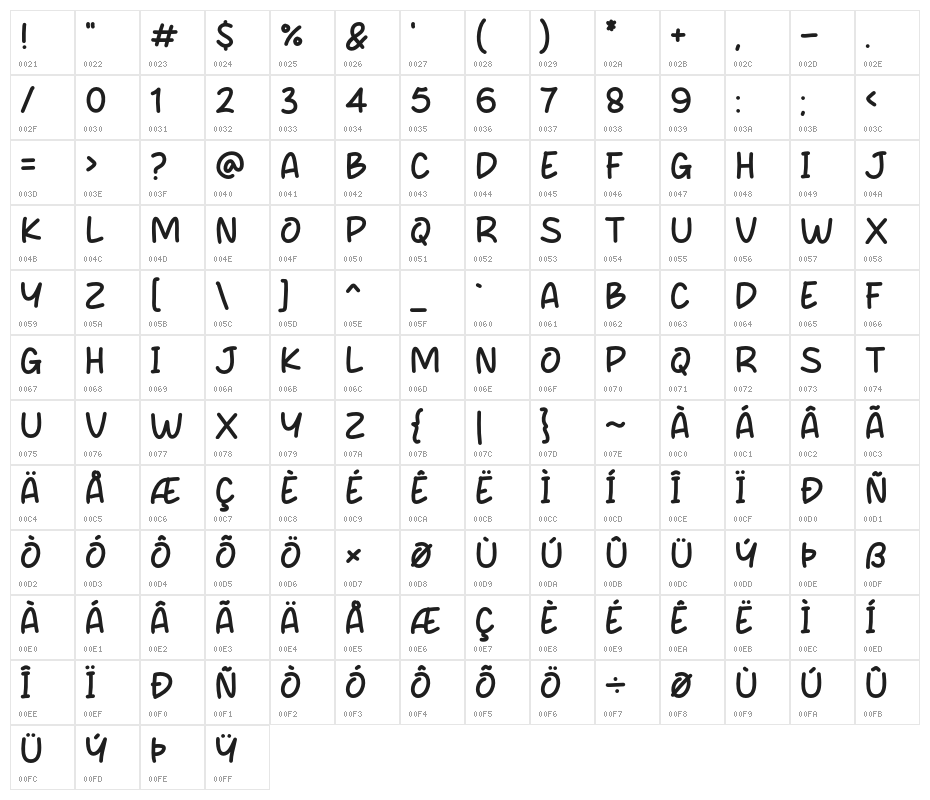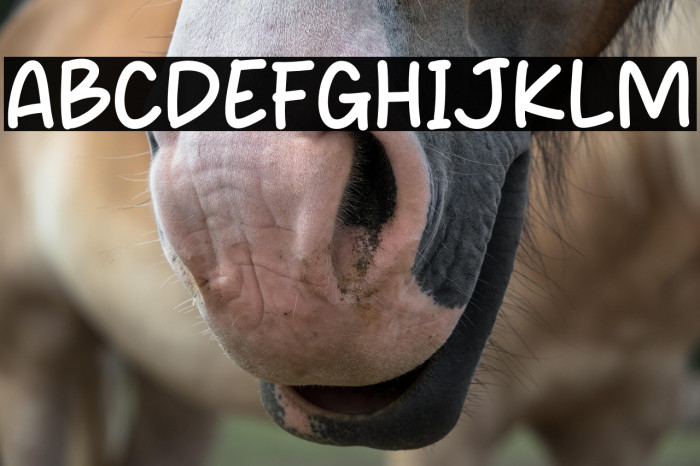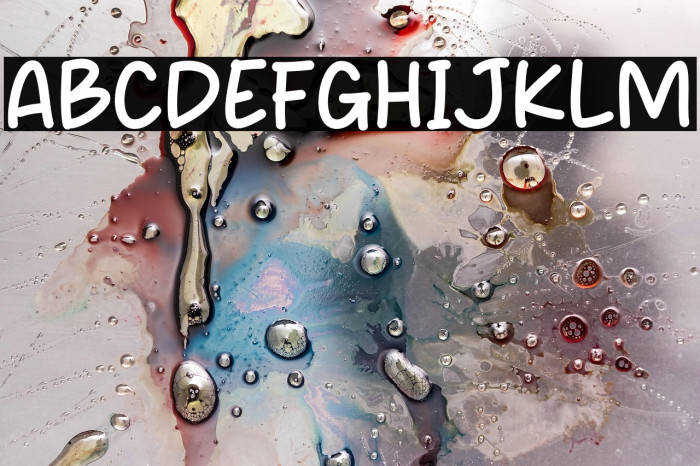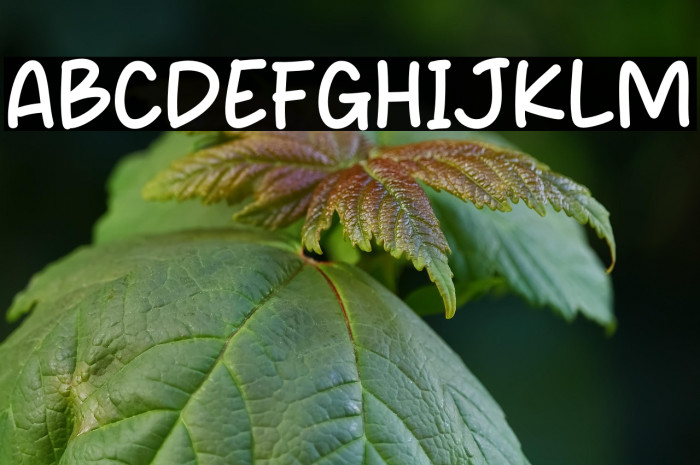
Squeal Oval Font
Squeal Oval Description
This font features a playful and rounded style, characterized by its smooth curves and consistent stroke width. The letters are bold and have a hand-drawn appearance, giving them a friendly and approachable feel. The uppercase and lowercase letters maintain a uniform height, contributing to a cohesive look. The numerals and special characters are designed to match the overall aesthetic, with rounded edges and a slightly whimsical touch. This font is versatile, suitable for projects that require a casual and inviting tone.
Overall StylePlayful
Use CaseHeadlines, Logos, Informal Text
Proposed ProjectsIdeal for children's books, playful branding, casual invitations, and social media graphics.